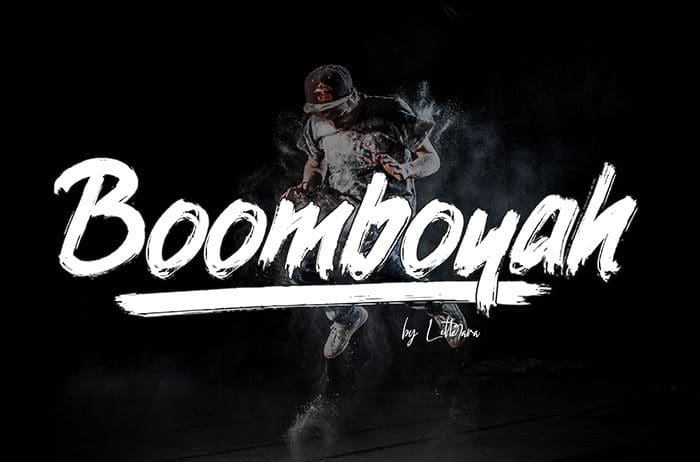
Free Boomboyah Display Font
Boomboyah Display Font
Free Boomboyah display font is a bold with an urban edge. Get inspired by its unique style. Make designs that are fun and stand out. Created this font by Thomas Aradea. You can also search more freeĀ Display Fonts. Thanks!